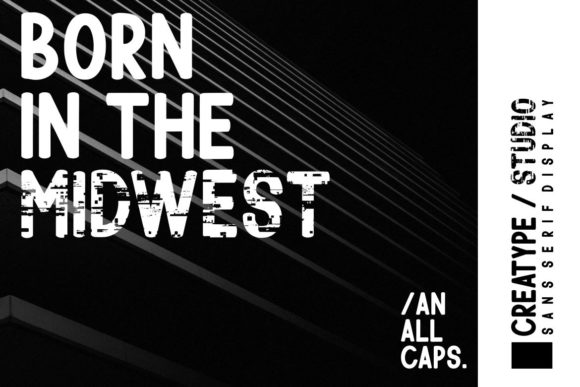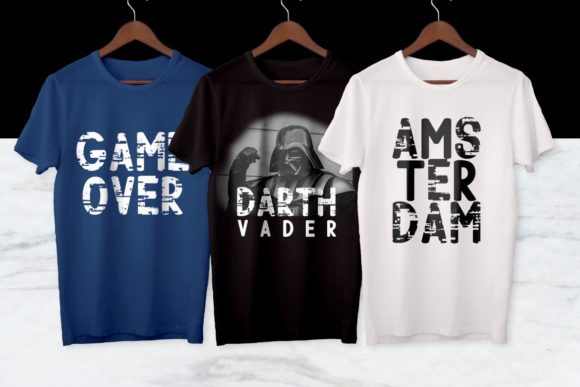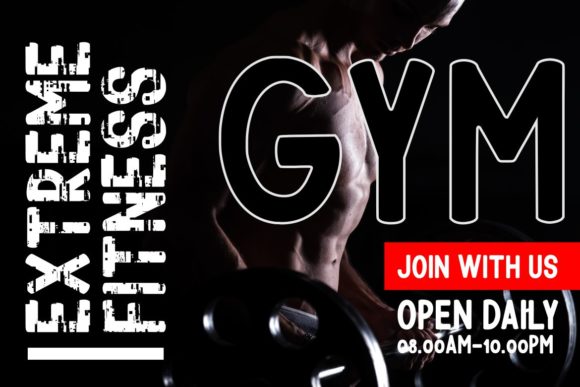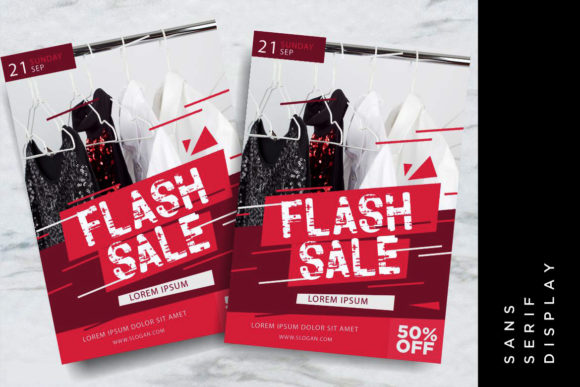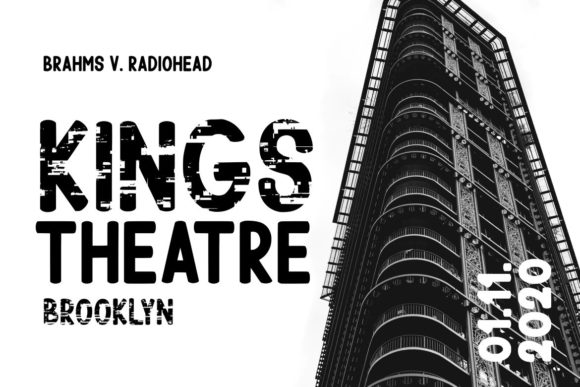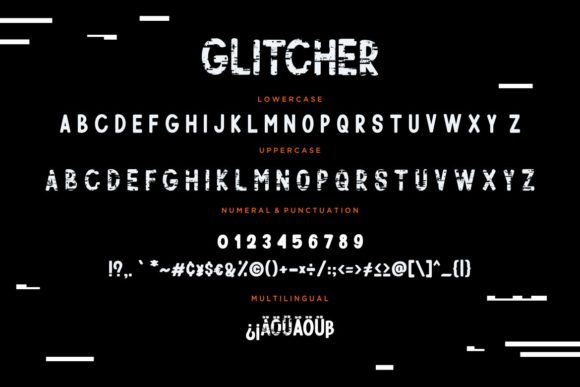
Introduction to Glitcher Font
You’ve spent hours pouring your heart and soul into a creative project, and finally, you’re ready to bring it to life. But, what if your design lacked that extra something to make it truly stand out? That’s where the magical Glitcher Font comes in – a game-changing sans serif font that adds a touch of whimsy and authenticity to any project.
Imagine being able to give your designs a unique, hand-crafted feel without sacrificing high quality or precision. With Glitcher Font, you can do just that. This enchanting font is perfect for designers who want to add a bit of quirkiness to their work without compromising on aesthetics. Whether you’re working on a branding project or creating a stunning visual content, Glitcher Font is an invaluable design resource that’s sure to elevate your creative game.
Key Features of Glitcher Font
- Unique Glitch Effect: The Glitcher Font offers a distinctive, high-quality glitch effect that can add a touch of digital chaos to any creative project.
- High-Quality Design: The Glitcher Font is designed with high-quality vectors, ensuring crisp and clear text at any size or resolution.
- Resolution-Independent: The font is designed to be resolution-independent, ensuring that it looks great at any resolution or screen size.
- Perfect for Digital Projects: The Glitcher Font is ideal for digital projects, such as video games, animations, and interactive experiences, where a glitchy aesthetic is desired.
Honest Review: Glitcher Font
As a designer, I’m always on the lookout for unique design resources to elevate my creative projects. Recently, I came across the Glitcher Font, which caught my attention with its futuristic and edgy vibe.
- ✨ The font’s high quality and detailed design make it perfect for futuristic and sci-fi themed projects.
- ⚠️ The font’s glitchy effect may not be suitable for all projects, and it may not be the best choice for more conservative or traditional designs.
- ⚠️ The font’s size and weight options are limited, which may not be ideal for designers who need more flexibility.
Overall, the Glitcher Font is a great addition to any designer’s toolkit. While it may have some limitations, its unique design and high quality make it a valuable resource for any creative project. If you’re looking to add a touch of futurism to your design, the Glitcher Font is definitely worth checking out.
To get the most out of Glitcher Font, use it with a transparent background to create a high-quality design. Experiment with different font sizes and colors to add visual interest to your project.
Glitcher Font is a versatile design resource that can be used in a variety of creative projects, including digital art, graphic design, and typography. Use it to add a unique touch to your designs and stand out from the crowd.